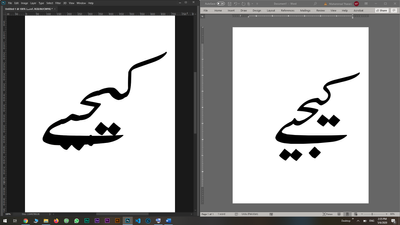
URDU Jameel Noori Nastaleeq Font kerning issue
I am facing this problem alot now. Whenever I type in URDU in Photoshop the text feel distorted and shows kerning issues. While same font works totally fine on Microsoft Word. I am sharing side by side screenshot for comparison.
Photoshop vs MS Word - Jameel Noori Nastaleeq
Is that the same font? Because the long line seems decidedly different in several details.
Yeah it's the same font. That's the problem URDU/ARABIC fonts look different on MS Word and Photoshop CC.
What is the font?
Do other Adobe applicatiosn like Indesign and Illustrator also display the issue?
What is the Photoshop > Preferences > Type > Choose Text Engine setting?